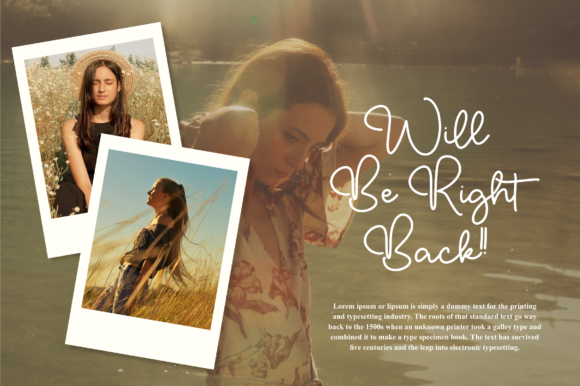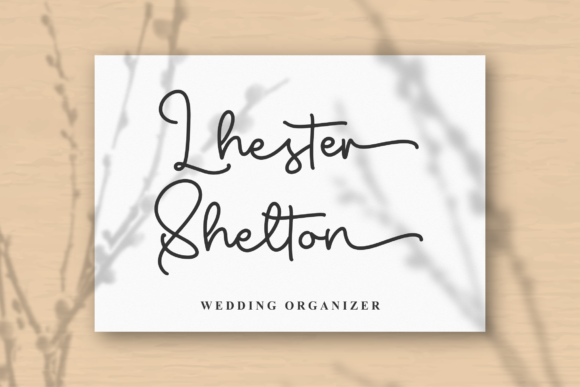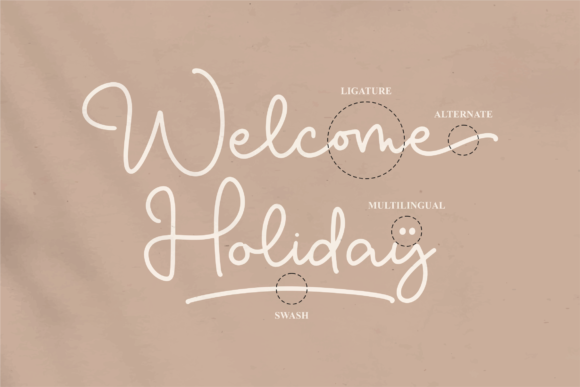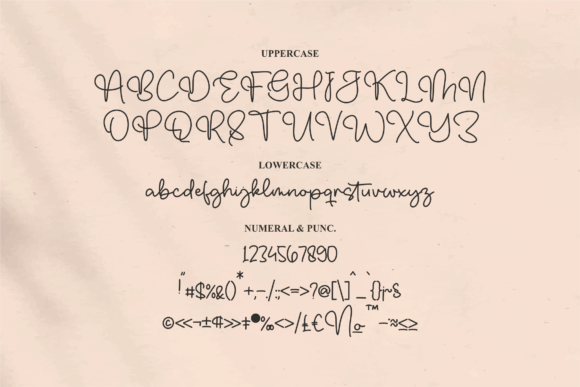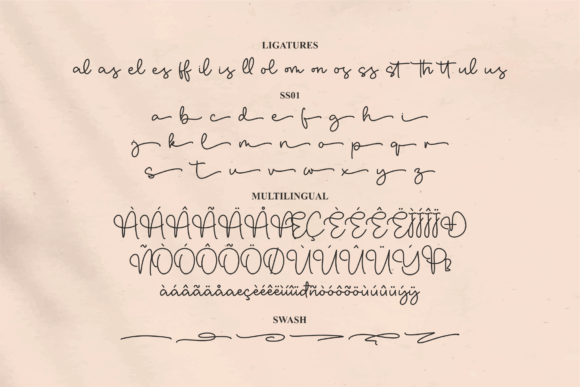
Galynda Alantha Font
About Galynda Alantha Font
Galynda Alantha feels equally charming and elegant. It is suitable for any projects such as: logos, branding projects, homeware designs, product packaging, mugs, quotes, posters, shopping bags, t-shirts, book covers, name card, invitation cards, greeting cards, label, photography, watermark, special events, and all your other lovely projects that need a beautiful script taste.